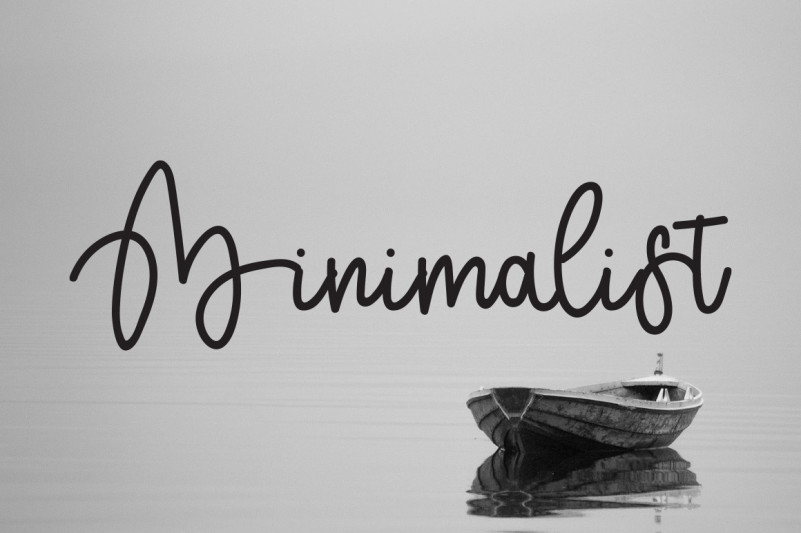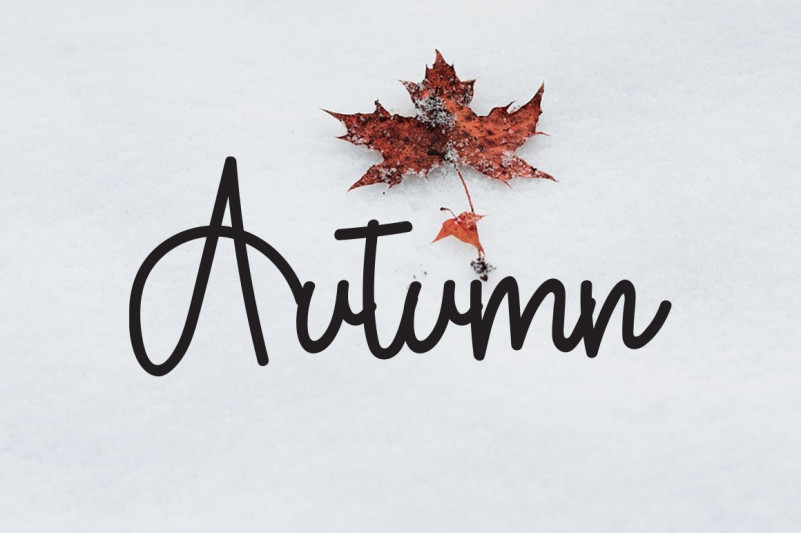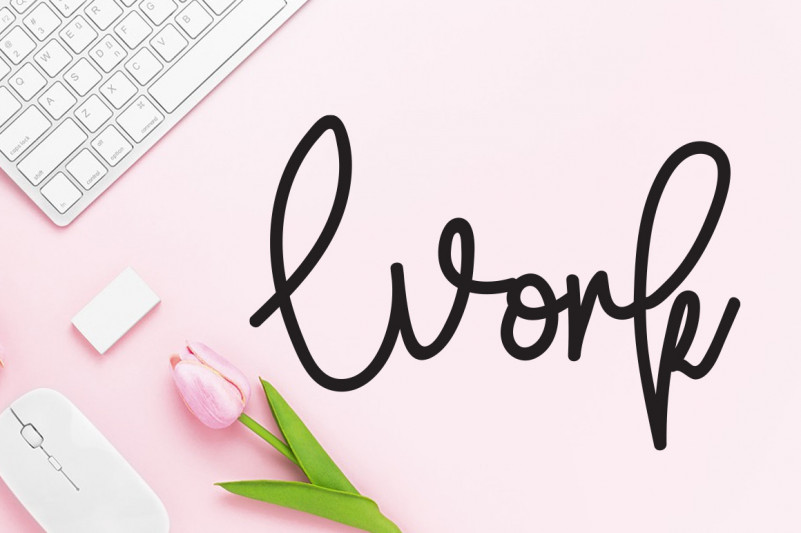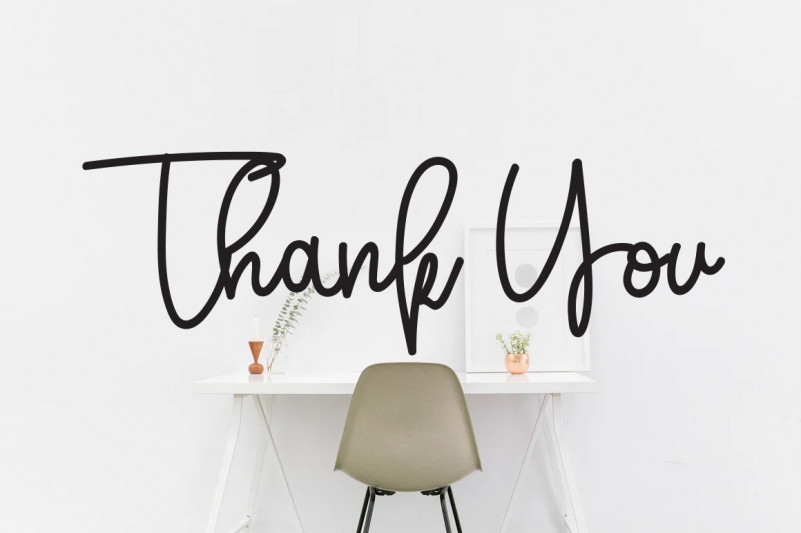
Flower Signature Script Font
This is a relaxed, readable and stylish script font. It is defined by smooth curves and is perfect for fashion branding or editorial designs. Add it confidently to your projects, and you will love the results.